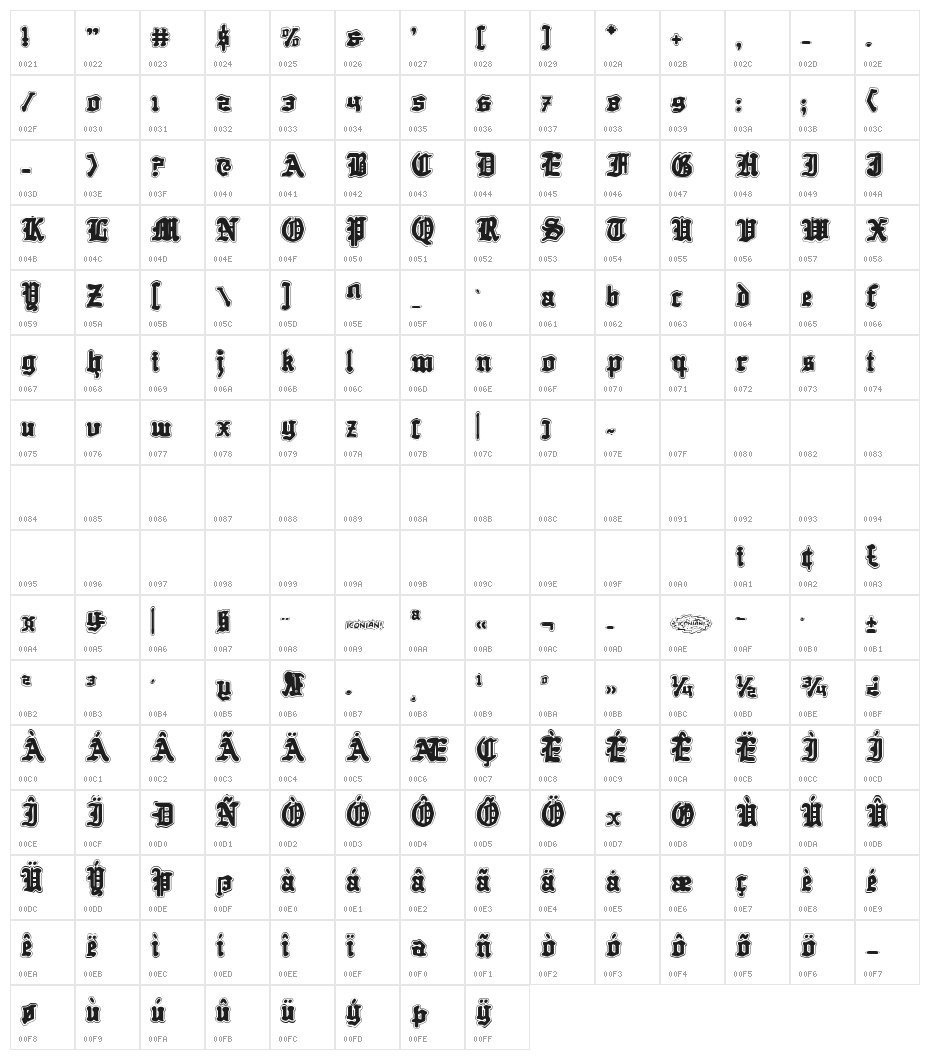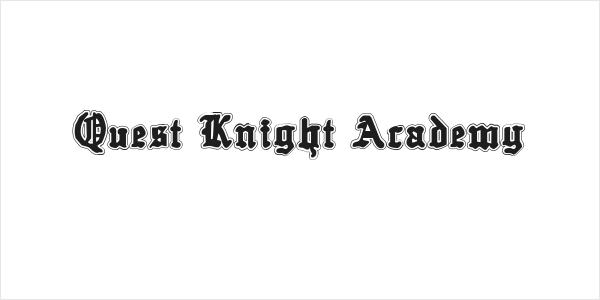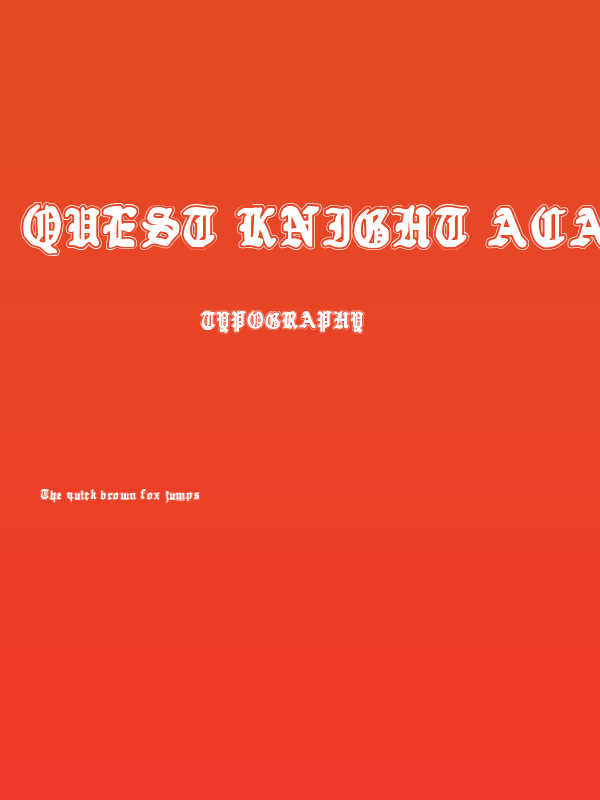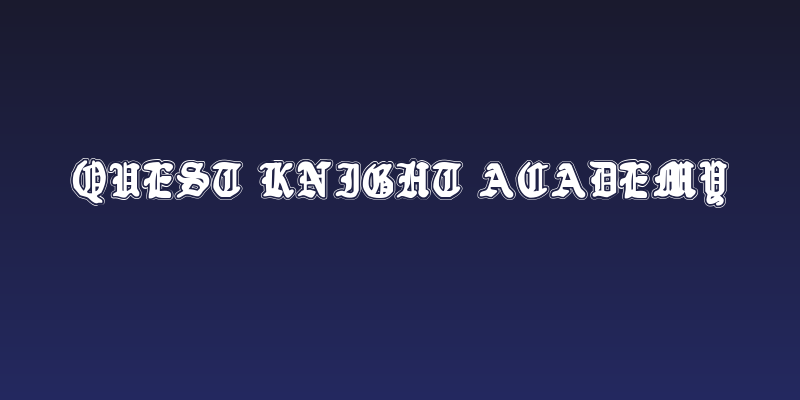
Quest Knight Academy Font
Quest Knight Academy Description
This font features a bold, dramatic style with a strong blackletter influence, characterized by its ornate and intricate letterforms. The uppercase and lowercase letters are designed with sharp angles and decorative elements, giving it a medieval, gothic appearance. The numbers and special characters maintain this elaborate style, ensuring consistency throughout the typeface. The font's thick strokes and outlined design create a striking contrast, making it highly visible and impactful. It's ideal for projects that require a historical or fantasy theme, adding a sense of grandeur and tradition.
| Overall Style | Gothic, Medieval, Decorative |
| Proposed Projects | Perfect for fantasy-themed designs, historical event posters, book covers, and branding that requires a dramatic, old-world aesthetic. |